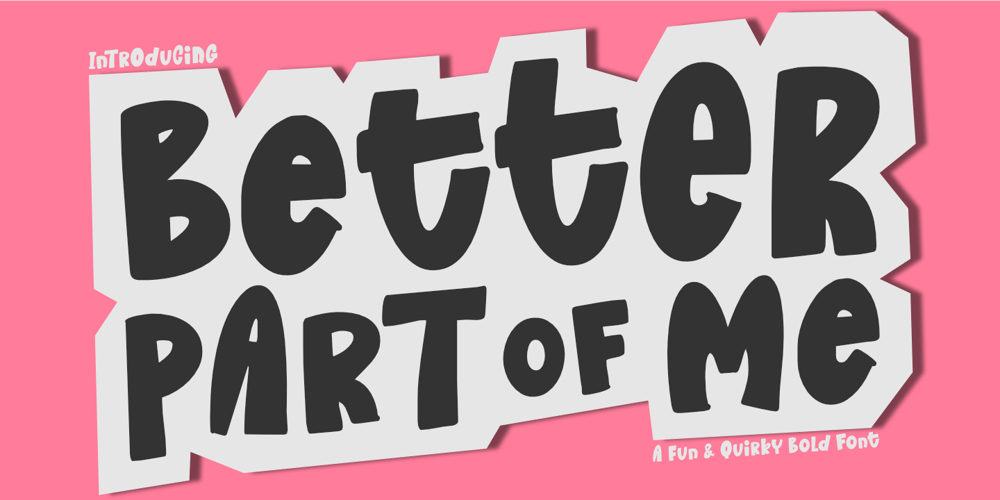
Better Part Of Me Font Family was designed by Aldy Sidik and published by Epiclinez. Better Part Of Me contains 1 styles and family package options. Introducing Better Part of Me, a fun and quirky font for adding a touch of whimsy and personality to your designs. This eye-catching font is perfect for creating attention-grabbing headlines, posters, and logos. With its playful style and cheerful spirit, it’s sure to brighten up your day.Better Part of Me font includes : Standard Latin Uppercase and Lowercase Numbers, symbols, and punctuations Multilingual Support. PUA Encoded and fully accessible without additional design software Simple Installations Works on PC & Mac Thank You.